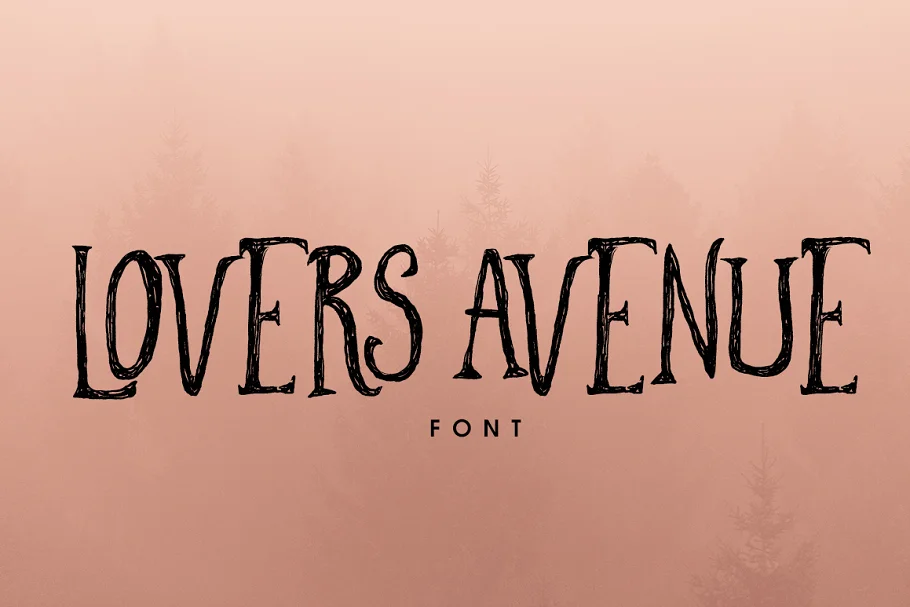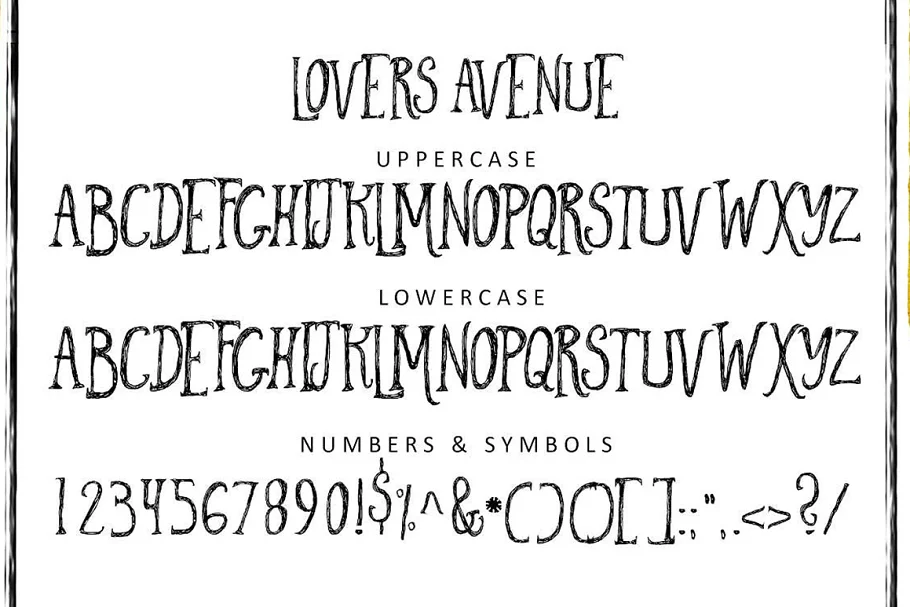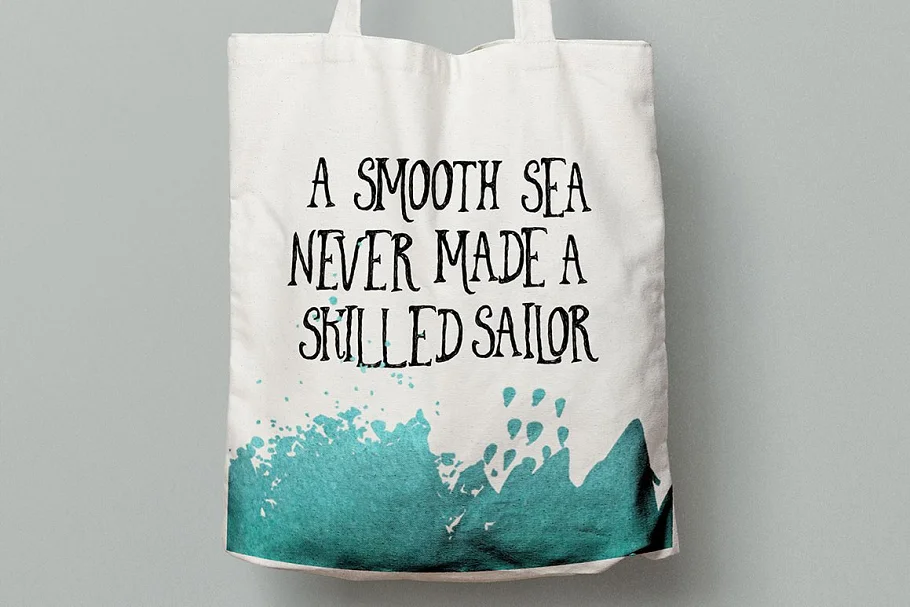
Lovers Avenue Font Family Free Download
About the Lovers Avenue Font
This is Lovers Avenue. A cool hand-drawn all caps display font. This font is part of the Big Bunch of Fonts Volume 2.